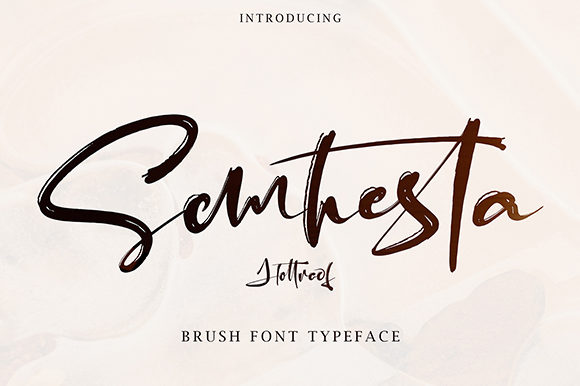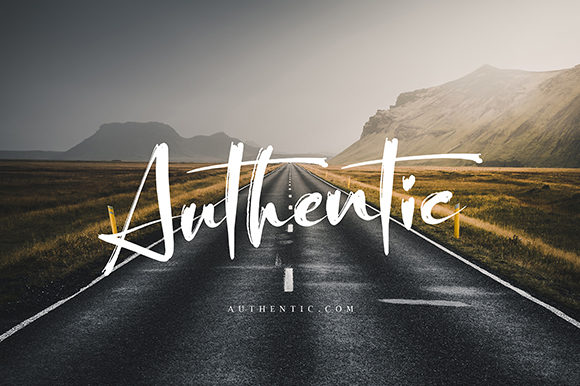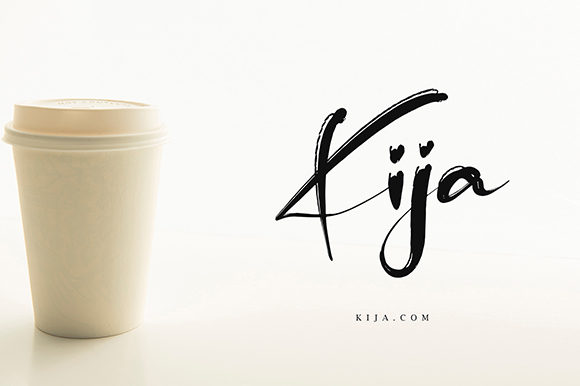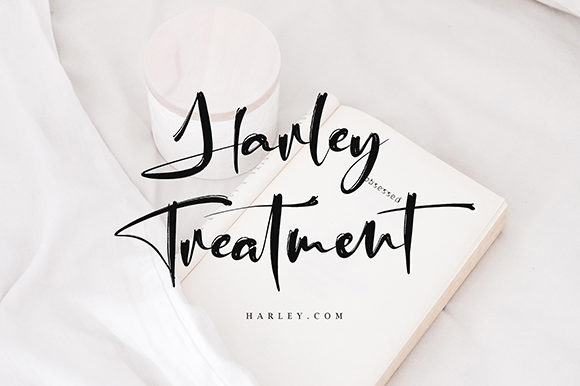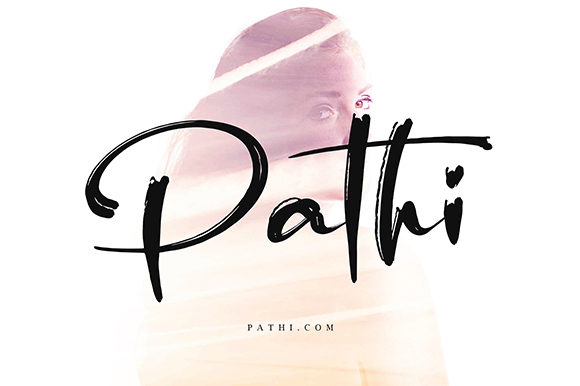
Semhesta Font
About Semhesta Font
Semhesta is a light and authentic script font with heaps of authenticity! It will add a personal touch to any design project.